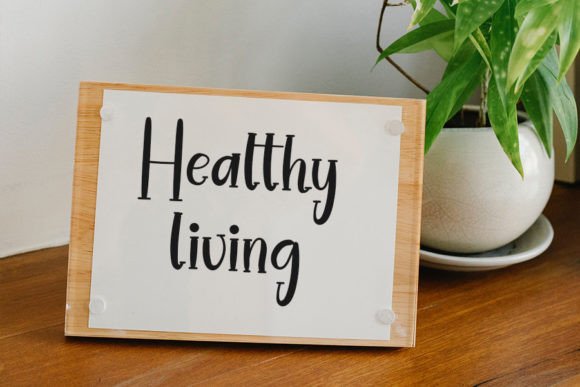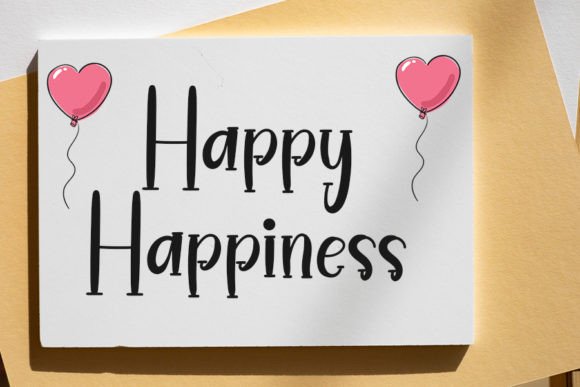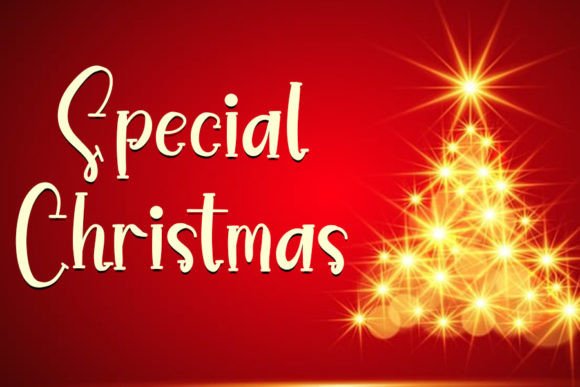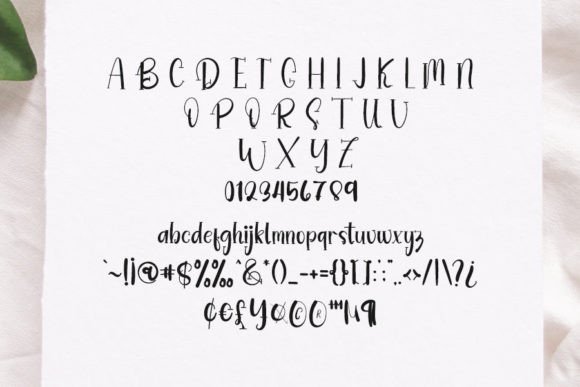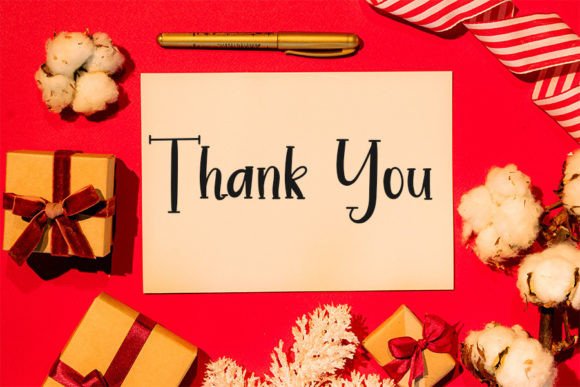
The Handmade Font: A Timeless Elegance for Your Designs
Have you ever been in the middle of a design project, and suddenly, you just can’t seem to find the right font? I recall a particularly frustrating experience while working on a client’s wedding invitation project. The design was almost complete, but the font just wasn’t right. That’s when I stumbled upon the Handmade font, and it completely transformed my design. In this article, I’ll share my love for this beautiful handwritten font, its features, and how to make the most of it in your designs.
A Personal Review: What I Love About Handmade Font
The Handmade font has an elegant touch that makes it perfect for a variety of projects. Here are some things I love about it:
- ✨ Elegant and Refined: The font has a neat and beautiful appearance, making it suitable for designs that require a touch of sophistication.
- ✅ Distinct and Timeless Style: The Handmade font has a unique and classic look that won’t go out of style anytime soon.
- 💫 Versatile: It can be used for a range of projects, from wedding invitations to branding and packaging designs.
While the Handmade font is amazing, there are a few things to keep in mind:
- 🤔 Legibility at Small Sizes: Like many script fonts, the Handmade font may not be as legible at very small sizes. It’s best used at larger sizes or for headlines.
- ⚠️ Limited Use for Body Text: Due to its elegant and cursive nature, the Handmade font might not be the best choice for long body text. It’s better suited for titles, headings, or short paragraphs.
The Handmade font was inspired by the beauty of handwritten calligraphy. Its designer aimed to create a font that captures the elegance and refinement of traditional calligraphy, while making it accessible for modern designs.
| What makes the Handmade font unique? | The Handmade font has a distinct and timeless style that sets it apart from other fonts. |
| Is the Handmade font suitable for body text? | While the Handmade font is beautiful, it’s not ideal for long body text. It’s better suited for titles, headings, or short paragraphs. |